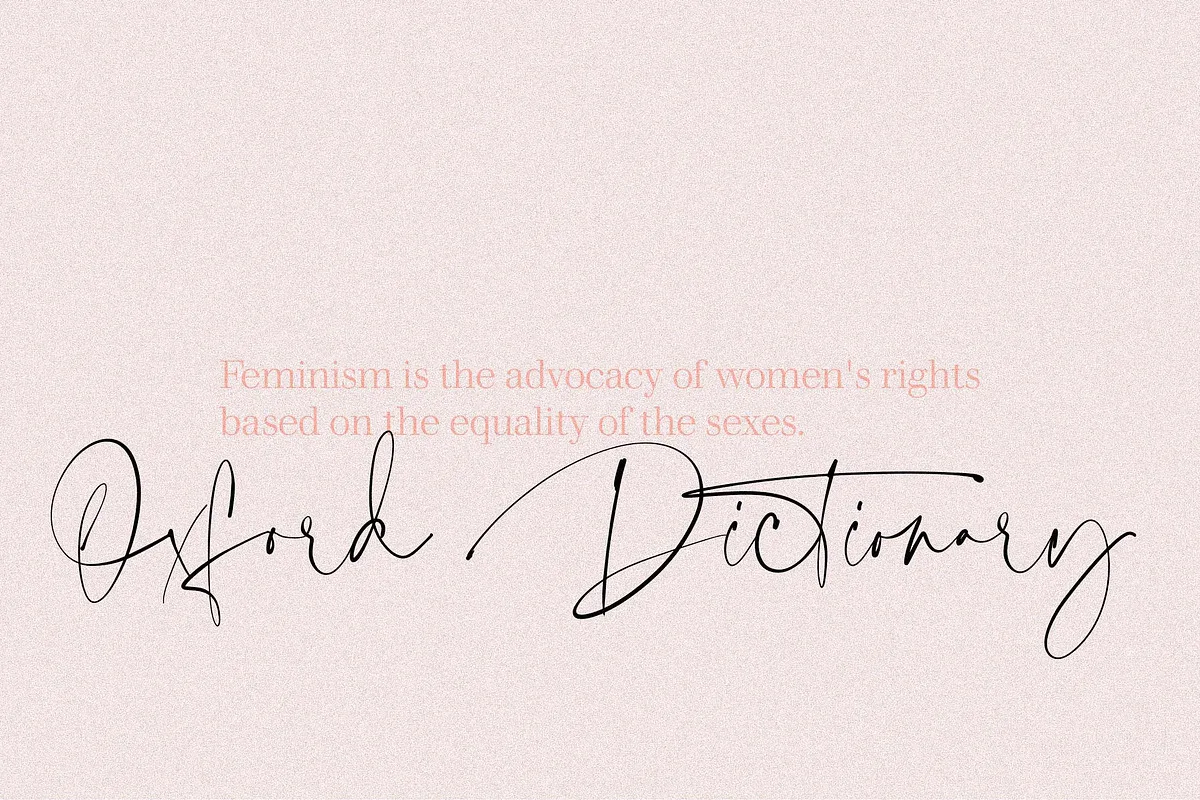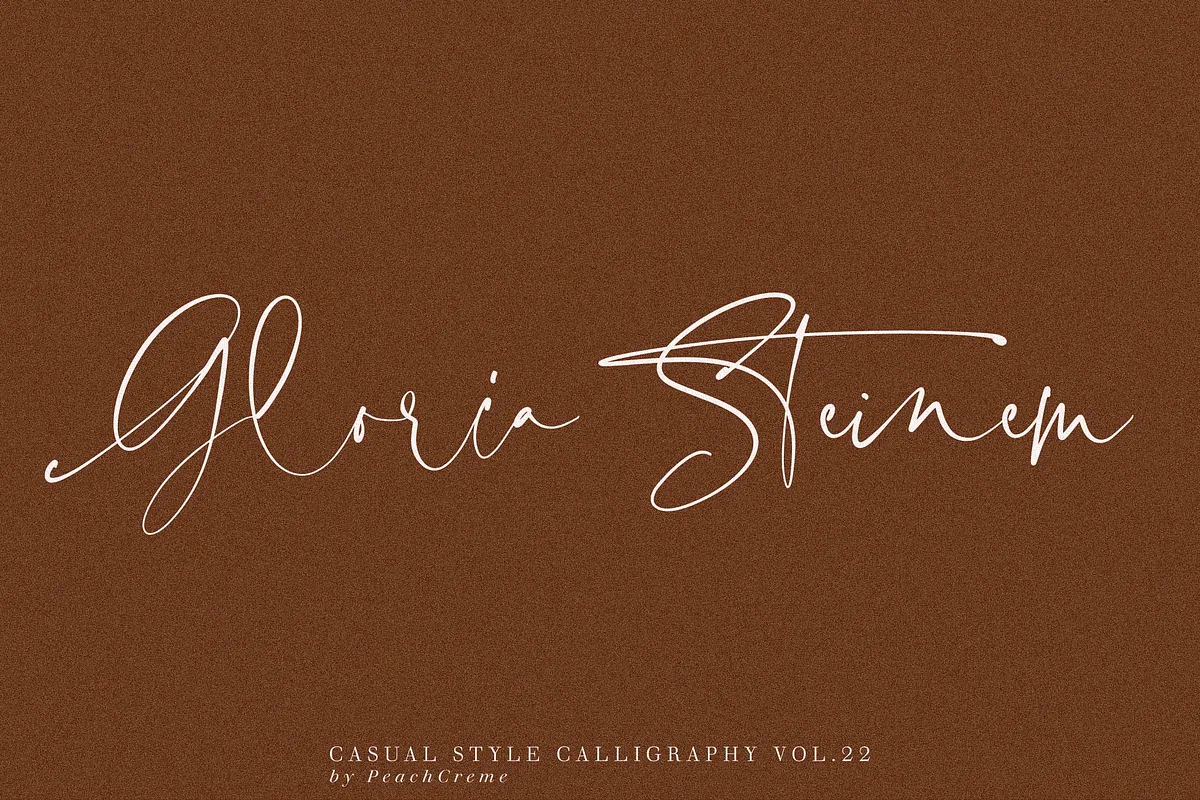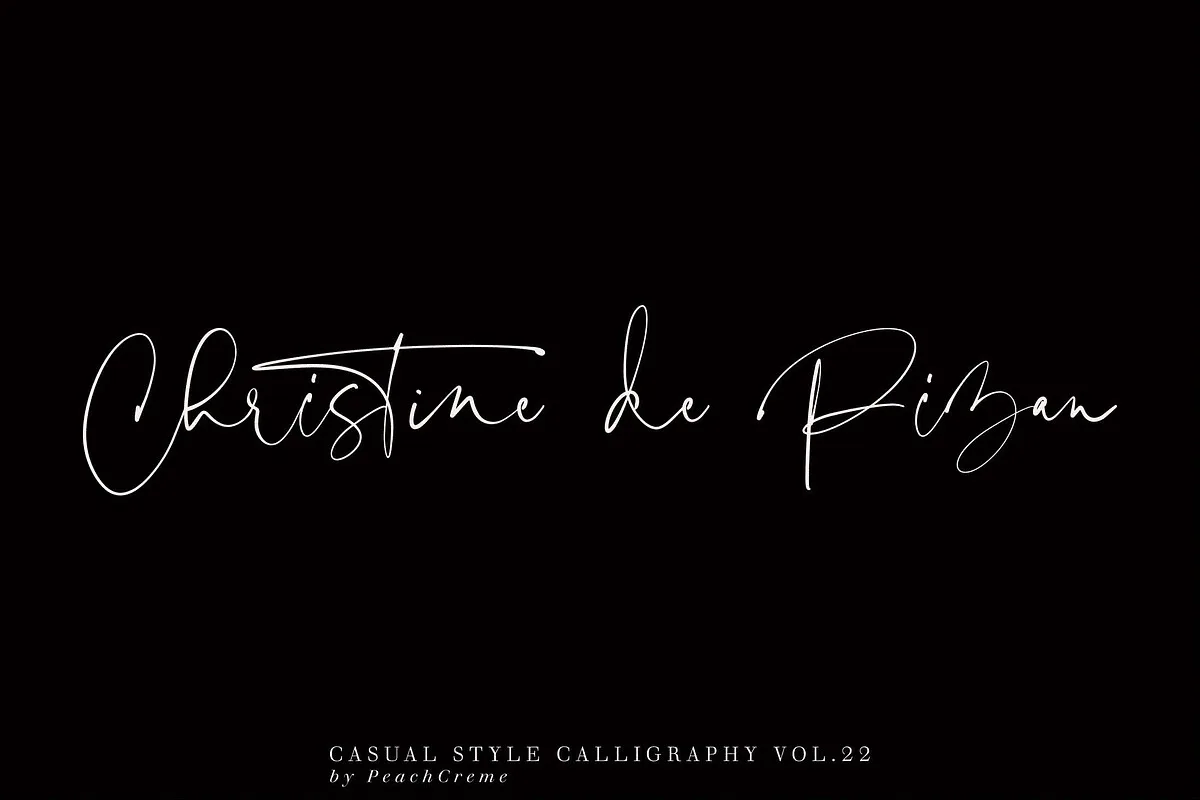
Feminist also includes a full set of uppercase and lowercase letters, multilingual symbols, numerals, and punctuation. The font has a smooth wet ink texture, so would be perfect for all types of printing techniques such as embroidery, laser cut, gold foil etc.